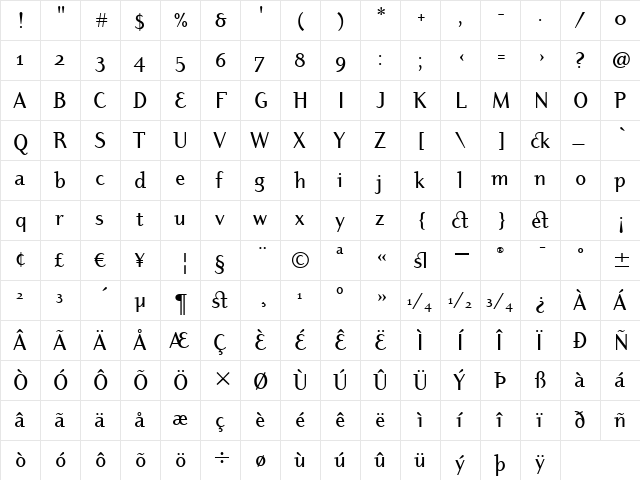
DyadisMdOSITC TT Medium Font Preview
DyadisMdOSITC TT Medium
DyadisMdOSITC TT Medium Font Details
| Foundry | International Typeface Corporation |
| Designer | Yvonne Diedrich |
Design Context for DyadisMdOSITC TT Typeface
DyadisMdOSITC TT takes a measured approach to typography — its balanced proportions and neutral character make it a reliable workhorse for both digital and print work.